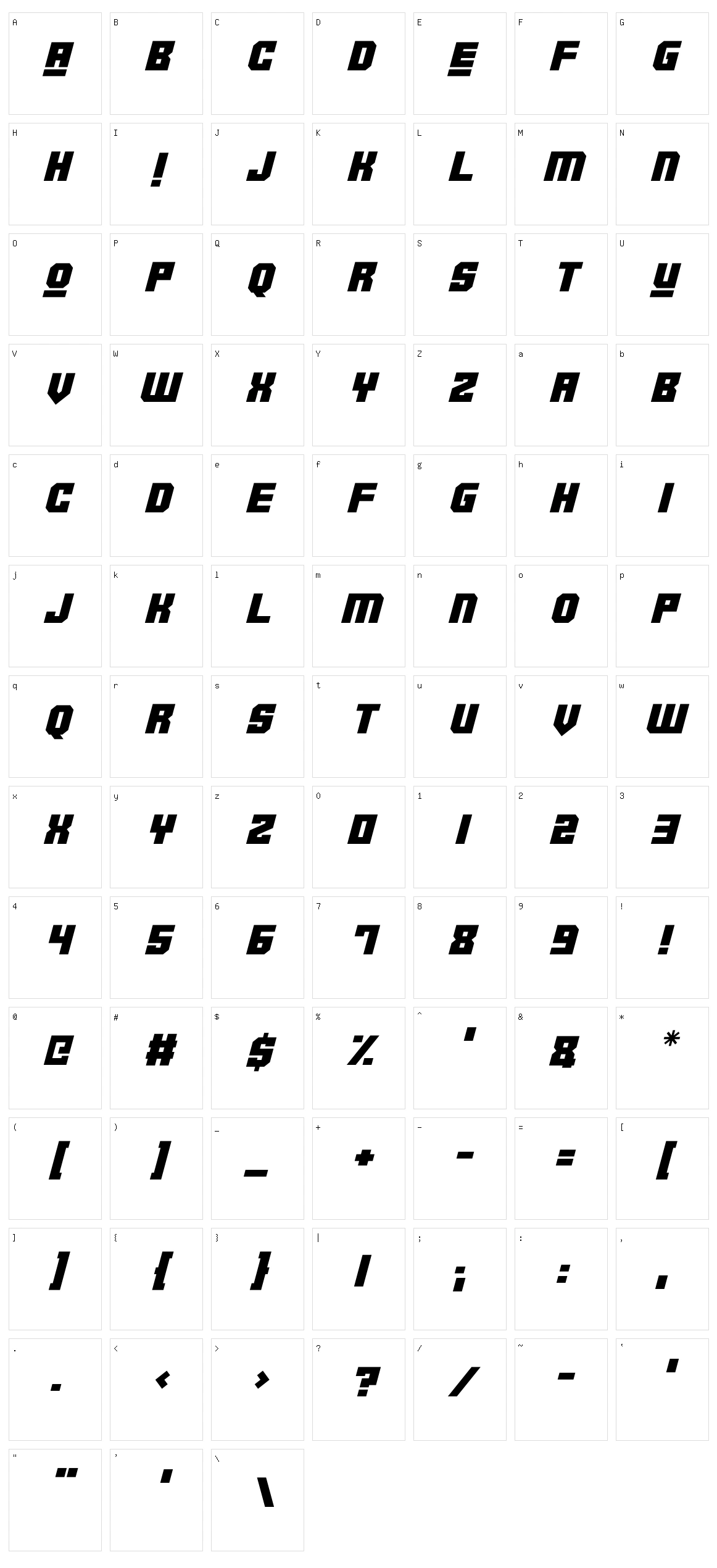
The free font Robotronica is carefully designed by Hawtpixel, showcasing a thoughtful balance of creativity and usability and falls under the Square font style. When you download the ZIP file, it contains only 47.41 KB of font files, making it lightweight and quick to download. Please review the license details below to understand permitted usage and distribution rights. If license information is not available, we recommend using this font for personal projects only or contacting the author directly for commercial usage permissions.